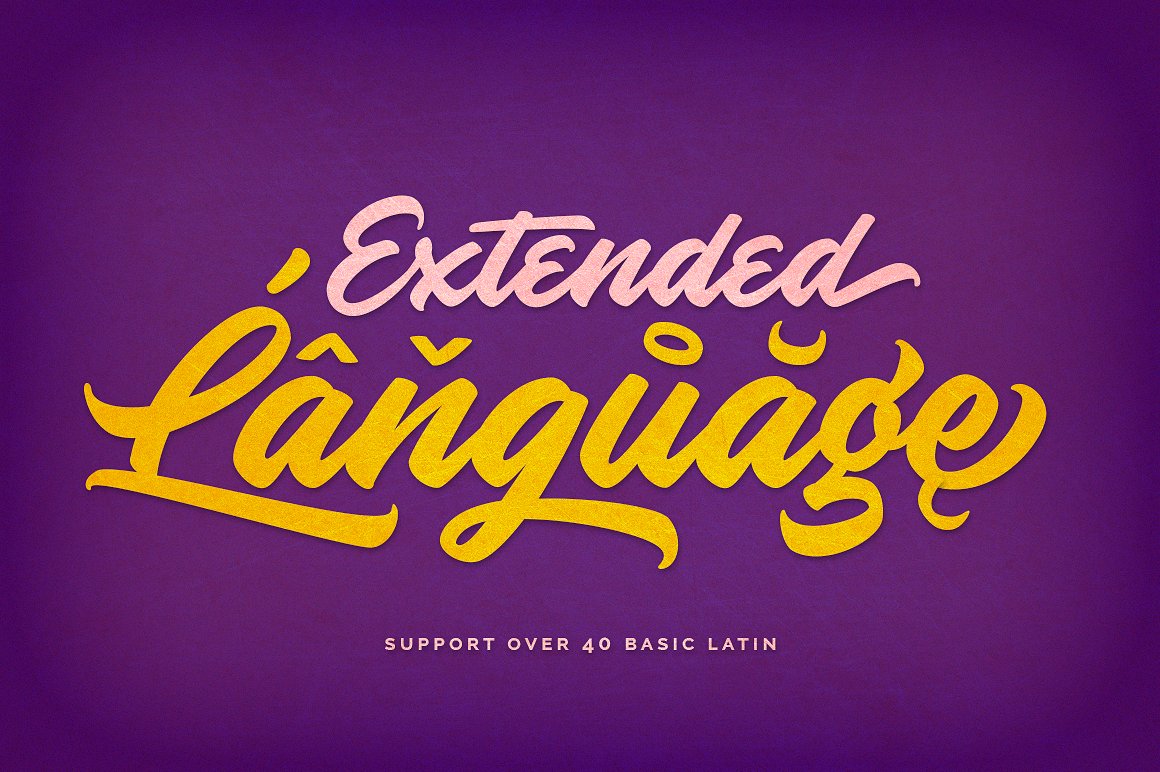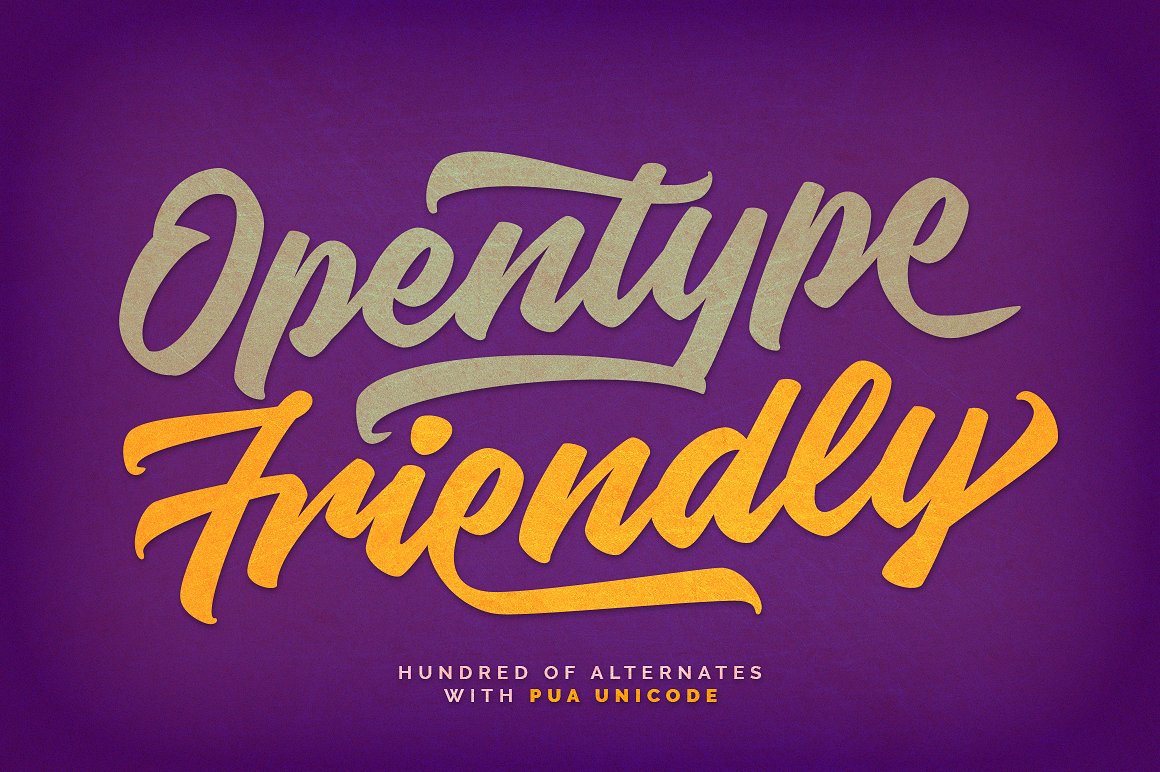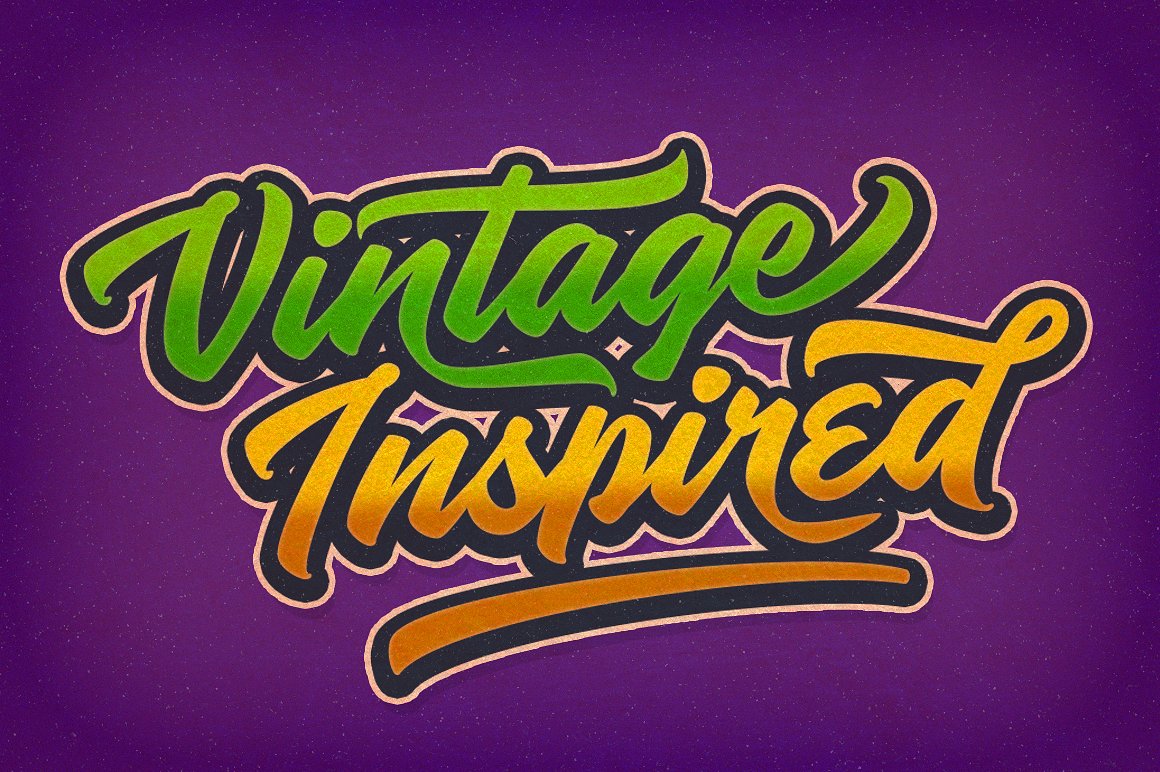
Introduction to Knight Brush Font
Have you ever stared at a blank canvas, trying to bring a creative project to life, only to be halted by a lack of the perfect font? It’s a frustrating feeling, but one that’s all too familiar for designers. For those seeking a high-quality font that adds a touch of elegance and sophistication to their work, the Knight Brush Font is the perfect solution.
This adaptable font, inspired by vintage storefront design, is a must-have for any design resource. With its unique brush-painting style, it’s the perfect choice for bold design ideas that require a touch of glamour and strength. Whether you’re working on a signage project or need a font for a creative venture, the Knight Brush Font is sure to impress.
And the best part? This stunning font is available for free download, making it an invaluable resource for designers of all levels. With a transparent background and a range of styles to choose from, the Knight Brush Font is the perfect addition to any design collection.
Key Features of Knight Brush Font
- High-quality, hand-drawn design perfect for creative projects and artistic endeavors.
- Features a unique, brush-style design that adds a touch of elegance and sophistication to any project.
- Perfect for use in logos, typography, and other design elements where a high-quality, custom font is required.
Honest Review: Knight Brush Font
As a designer, I’m always on the lookout for unique and high-quality fonts to elevate my creative projects. Recently, I stumbled upon the Knight Brush Font, and I’m excited to share my honest review with you.
- High-quality design: The Knight Brush Font has a beautiful, hand-drawn feel that’s perfect for adding a touch of elegance to your designs.
- Limited character set: Unfortunately, the Knight Brush Font only includes a limited character set, which may not be suitable for more extensive design projects.
- Not ideal for large-scale text: The font’s brush-like design may not be the best choice for large-scale text, as it can become difficult to read.
Overall, I think the Knight Brush Font is a fantastic addition to any designer’s toolkit. While it may have some limitations, its unique design and high-quality feel make it a great resource for creative projects. Whether you’re working on a personal or professional project, the Knight Brush Font is definitely worth checking out.
Tips for Getting the Most Out of Knight Brush Font
For optimal results, use the Knight Brush Font on a transparent background to give your design a clean and modern look. Experiment with different font sizes, colors, and combinations to add depth and visual interest to your creative project.
The Knight Brush Font is ideal for use in a variety of creative projects, including:
- Logos and branding materials
- Social media graphics and posts
- Presentations and documents
- Print materials, such as business cards and brochures
Alternatives to Knight Brush Font
Pacifico is a high-quality, elegant script font ideal for creative projects that require a touch of sophistication. It features a transparent background, making it perfect for overlays and backgrounds. Pacifico is a great alternative to Knight Brush Font for designers who want a more refined and polished look.
When to use: Wedding invitations, luxury branding, and high-end packaging designs.
Great Vibes is a beautiful, handwritten font that adds a personal touch to any design project. It’s perfect for creative projects that require a sense of freedom and playfulness. Great Vibes is similar to Knight Brush Font in its organic feel but has a more vibrant and energetic personality.